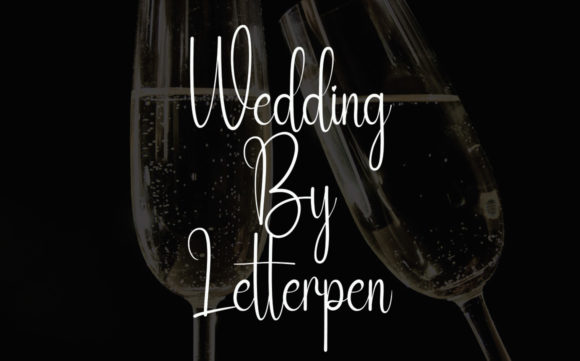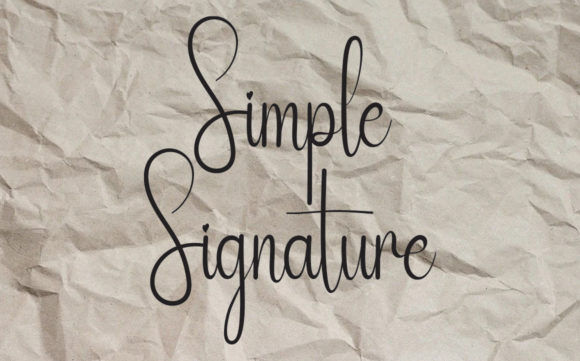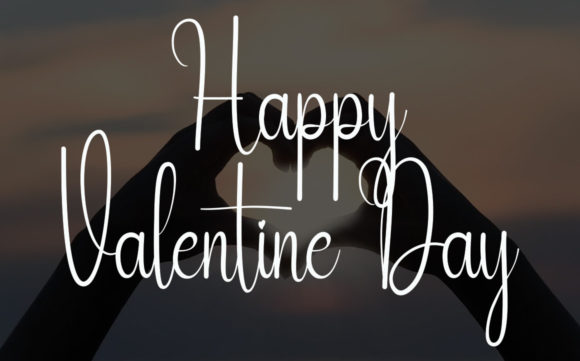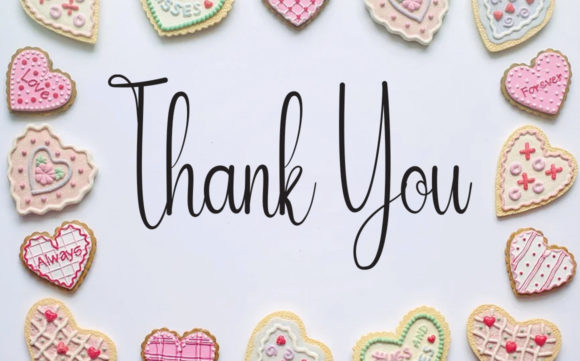
Introducing Beautiful Font: The Sweet and Romantic Handwritten Font
Are you looking for a font that exudes elegance, romance, and sophistication? Look no further than Beautiful Font, a stunning handwritten font that is sure to capture the hearts of designers, crafters, and anyone who lays eyes on it. With its delicate flow and whimsical charm, Beautiful Font is the perfect choice for a wide range of projects, from wall displays and wedding invitations to social media posts and logos.
The Characteristics of Beautiful Font
Beautiful Font is a true gem, boasting a range of characteristics that make it stand out from the crowd. Here are just a few of its notable features:
- Delicate flow: Beautiful Font features a smooth, flowing script that is both elegant and refined. Each letter is carefully crafted to create a sense of movement and fluidity, making it perfect for projects that require a touch of whimsy and romance.
- Handwritten charm: Unlike traditional fonts, Beautiful Font has a distinctly handwritten feel that is both personal and inviting. Its imperfections and quirks add to its charm, making it feel like a bespoke creation.
- Romantic vibe: Beautiful Font is the epitome of romance, with a soft, feminine quality that is sure to captivate anyone who sees it. Whether you’re designing a wedding invitation or a social media post, this font is sure to evoke feelings of love and affection.
Uses for Beautiful Font
Beautiful Font is incredibly versatile, making it suitable for a wide range of projects and applications. Here are just a few ideas to get you started:
- Wedding invitations: Beautiful Font is the perfect choice for wedding invitations, with its romantic vibe and elegant flow. Use it to create stunning invitations that set the tone for a beautiful and unforgettable wedding.
- Wall displays: Create eye-catching wall displays with Beautiful Font, whether you’re designing a motivational quote, a love letter, or a simple message. Its delicate flow and whimsical charm make it perfect for adding a touch of personality to any room.
- Social media posts: Add a touch of elegance to your social media posts with Beautiful Font. Use it to create stunning graphics, quotes, and messages that are sure to captivate your audience.
- Logos: Beautiful Font is also perfect for creating logos, whether you’re designing a brand identity or a personal logo. Its unique charm and character make it a great choice for businesses and individuals looking to stand out.
Tips for Using Beautiful Font
To get the most out of Beautiful Font, here are a few tips to keep in mind:
- Keep it simple: Beautiful Font is a statement font, so it’s best to keep your design simple and uncluttered. Avoid overcrowding your design with too much text or graphics.
- Experiment with colors: Beautiful Font looks stunning in a range of colors, from soft pastels to rich jewel tones. Experiment with different colors to find the perfect combination for your project.
- Play with sizes: Beautiful Font is versatile enough to be used in a range of sizes, from large and bold to small and delicate. Experiment with different sizes to create visual interest and hierarchy.
Beautiful Font is a true gem, offering a unique combination of elegance, romance, and whimsy that is sure to captivate designers, crafters, and anyone who lays eyes on it. With its delicate flow, handwritten charm, and romantic vibe, it’s the perfect choice for a wide range of projects, from wall displays and wedding invitations to social media posts and logos. So why wait? Download Beautiful Font today and start creating stunning designs that are sure to leave a lasting impression.